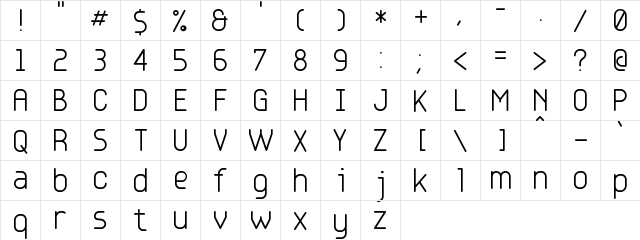
Base4 Regular Font Preview
Base4 Regular
Base4 Regular Font Details
Design Context for Base4 Typeface
Base4 is a composed and adaptable typeface that performs quietly and consistently across a wide range of design contexts.